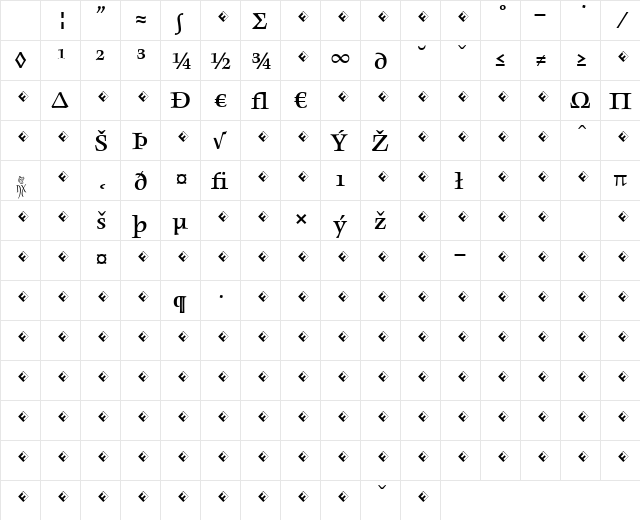
Complete Angkoon-MediumExpert Regular glyph index. Displaying only characters natively supported by Angkoon-MediumExpert Regular font.
Angkoon-MediumExpert is a composed and adaptable typeface that performs quietly and consistently across a wide range of design contexts.
Who designed the Angkoon-MediumExpert Regular font?
This font was published by Xavier Dupre, published by FontShop International for the FontFont Library. Check the technical specs section for copyright and designer details.